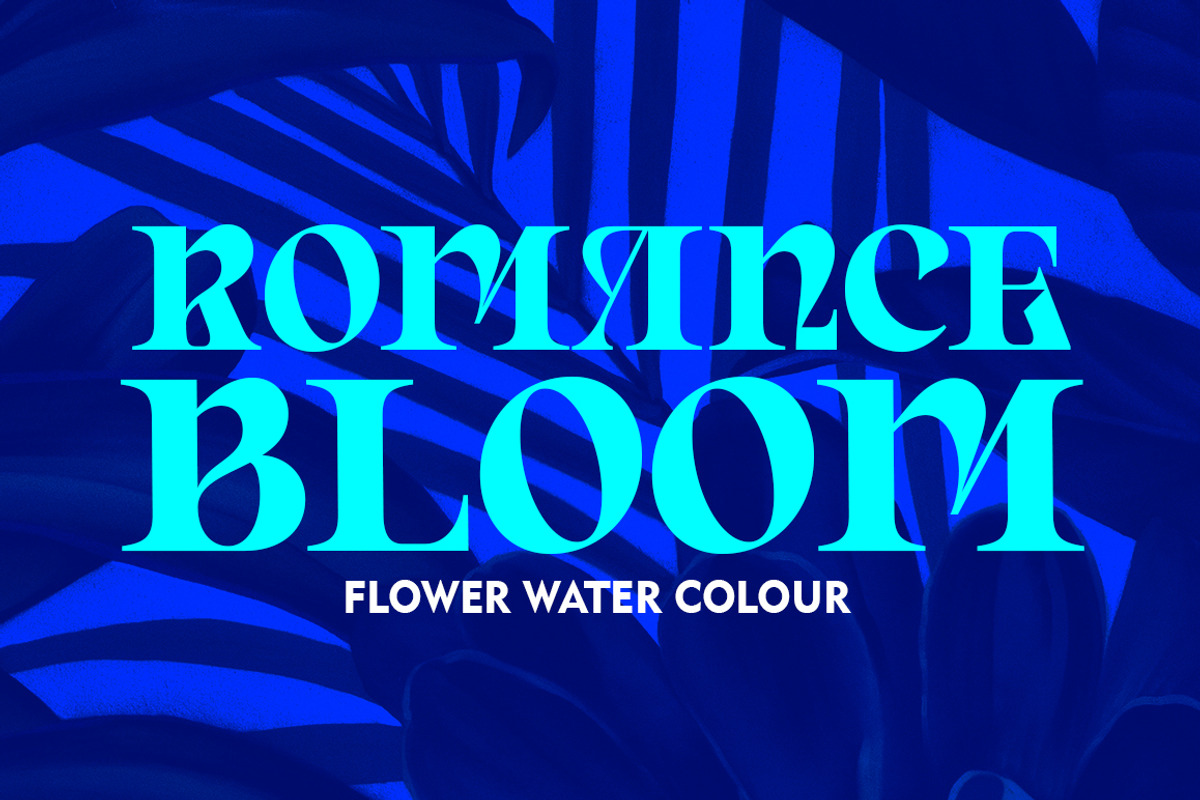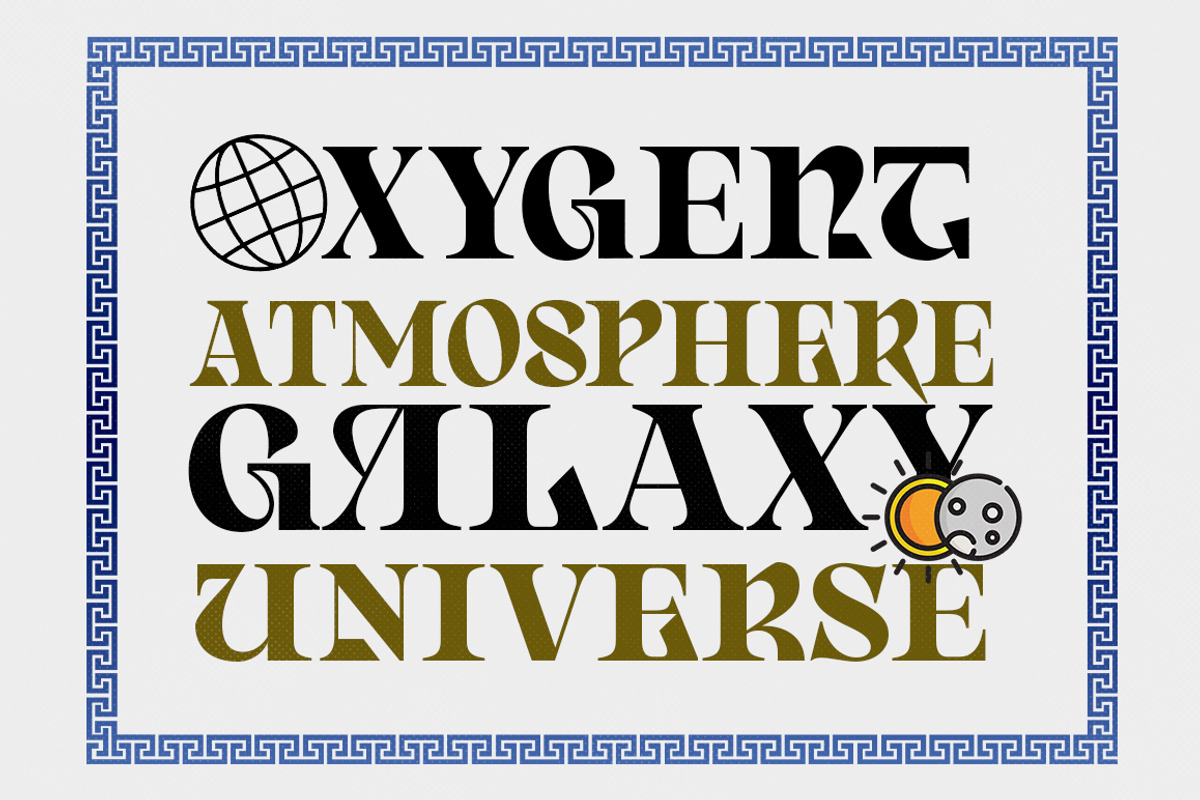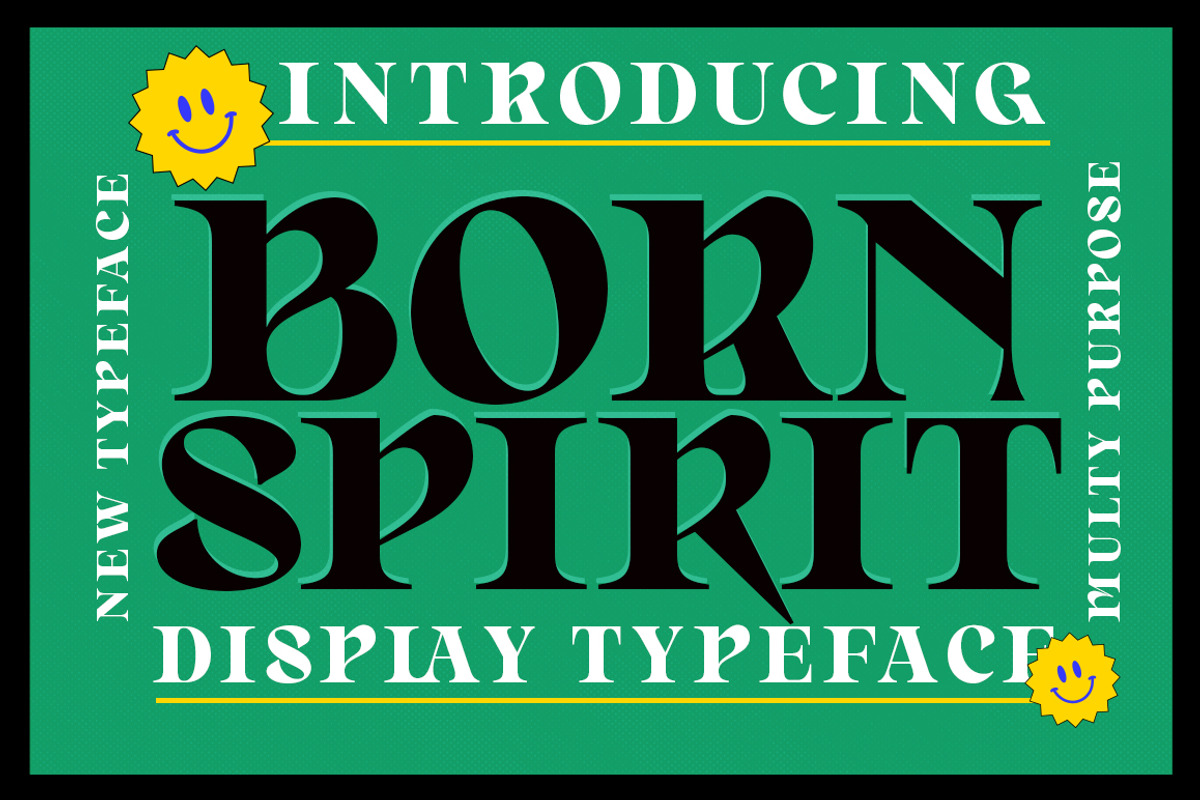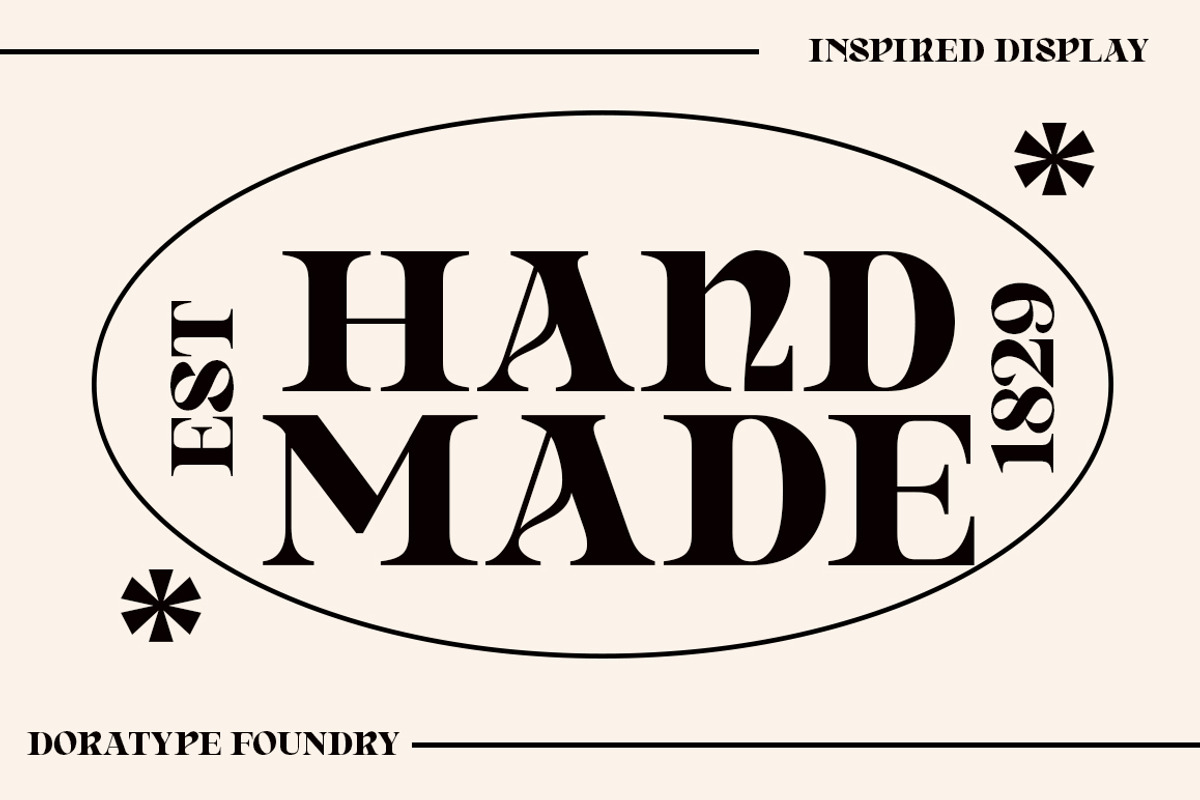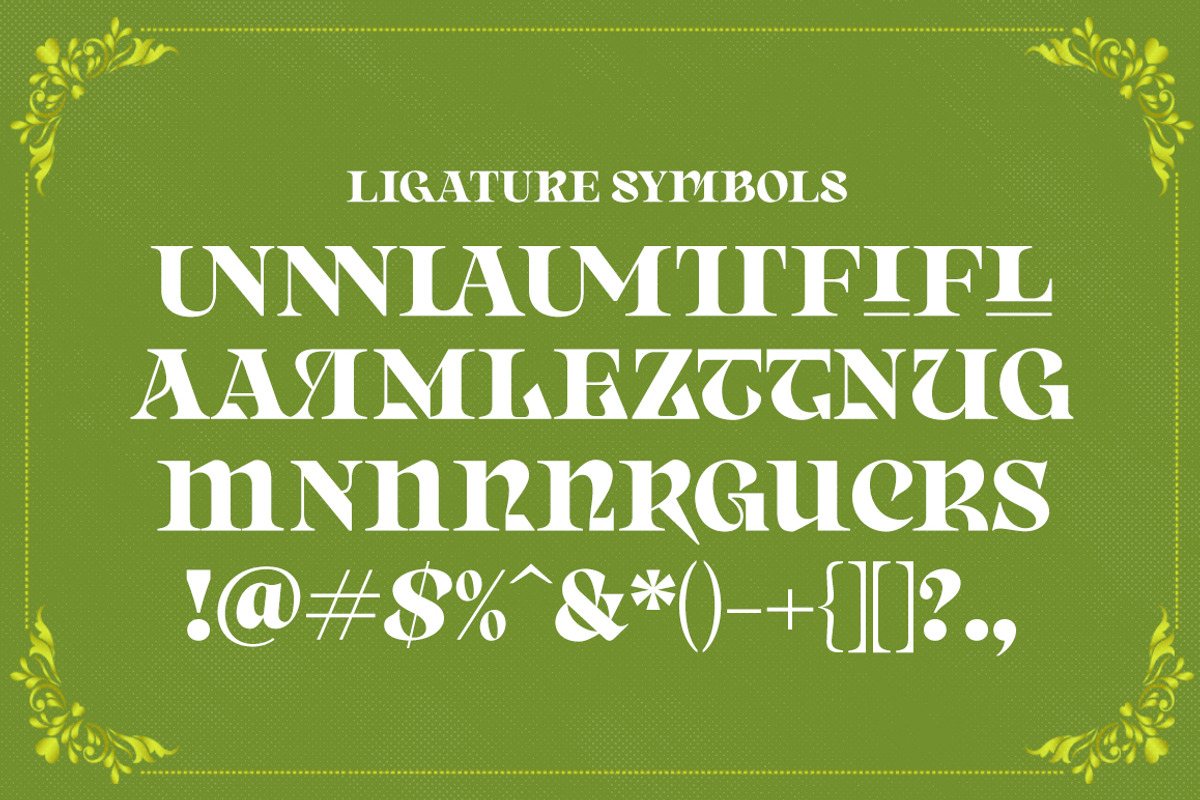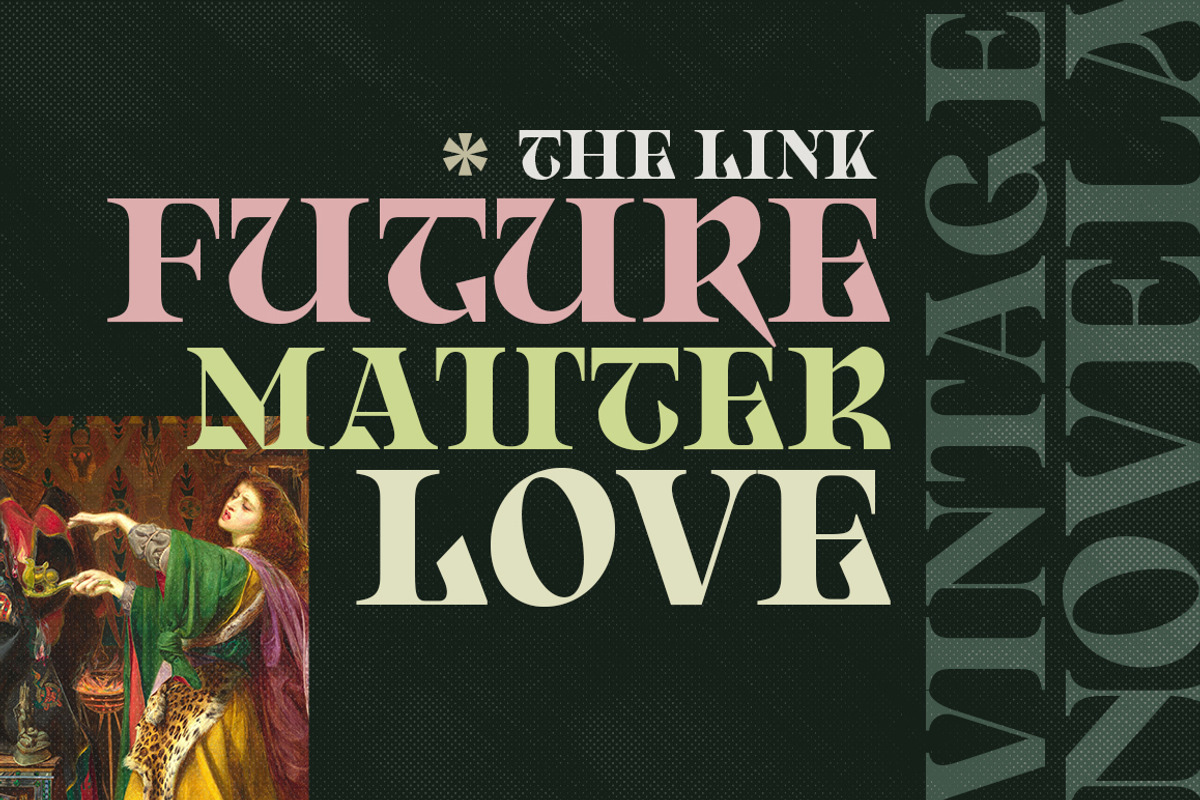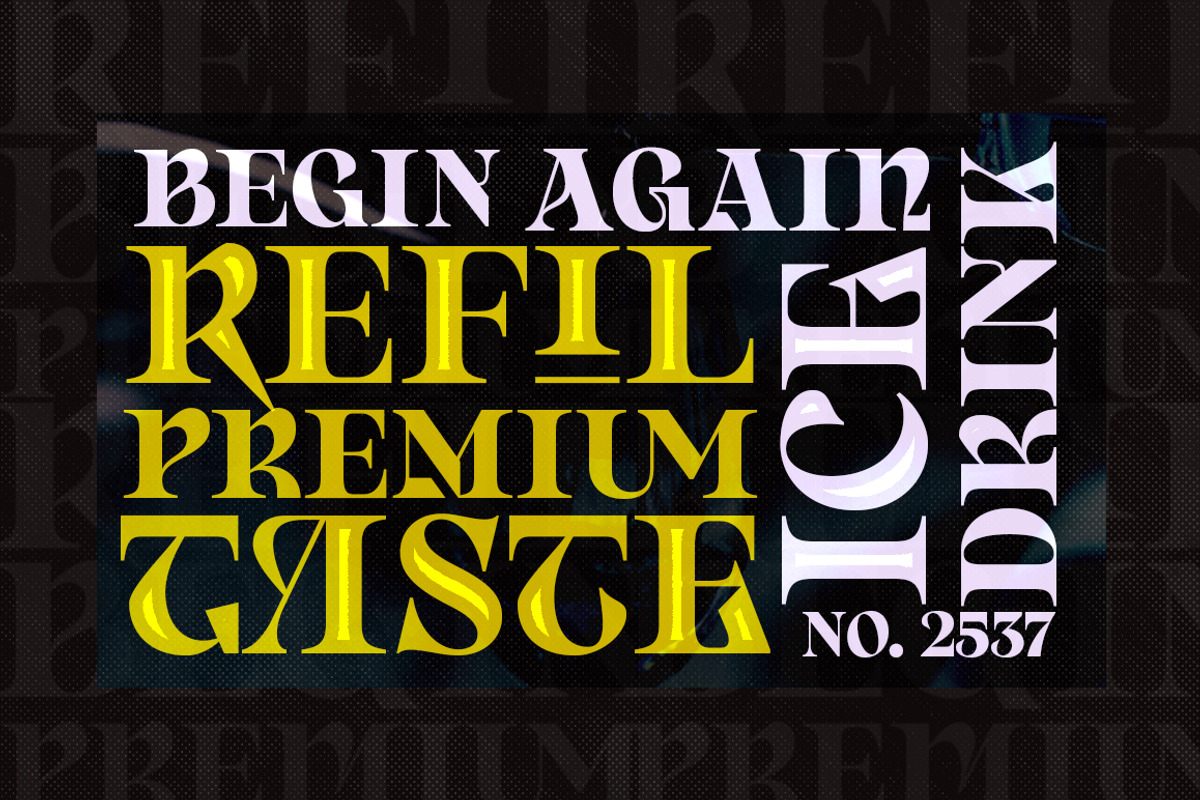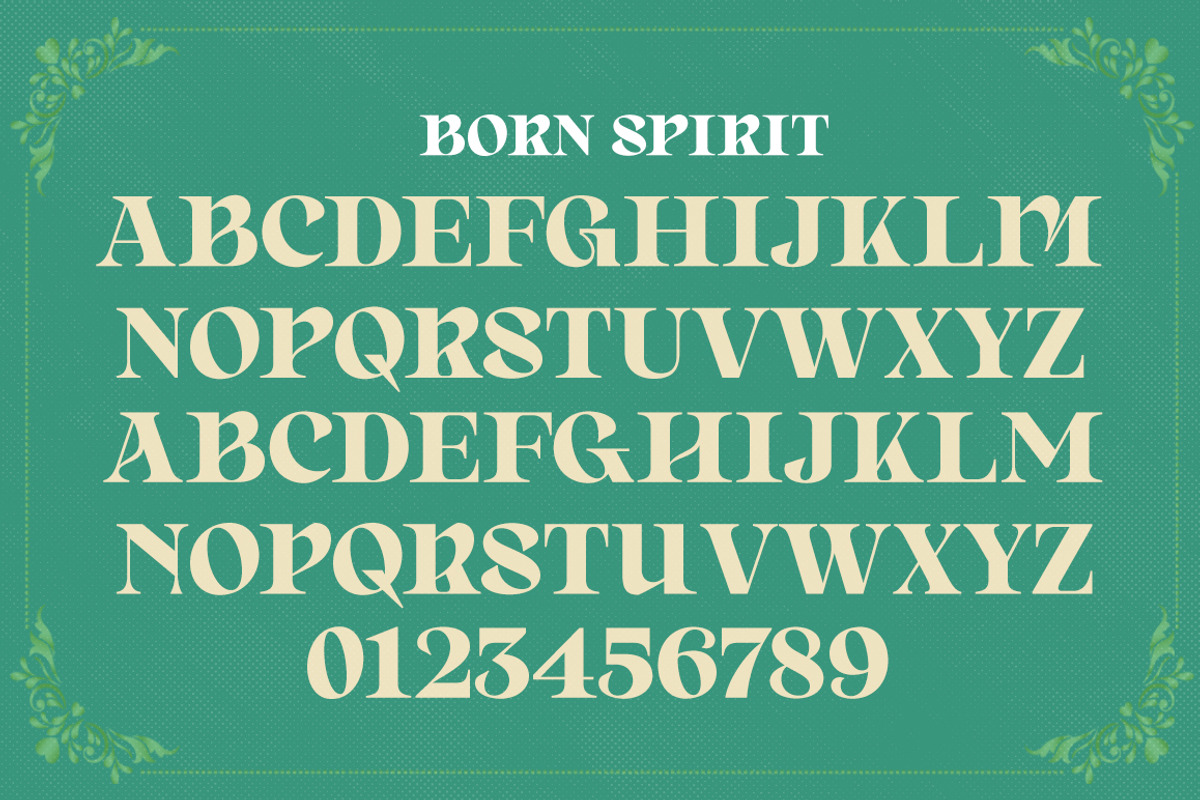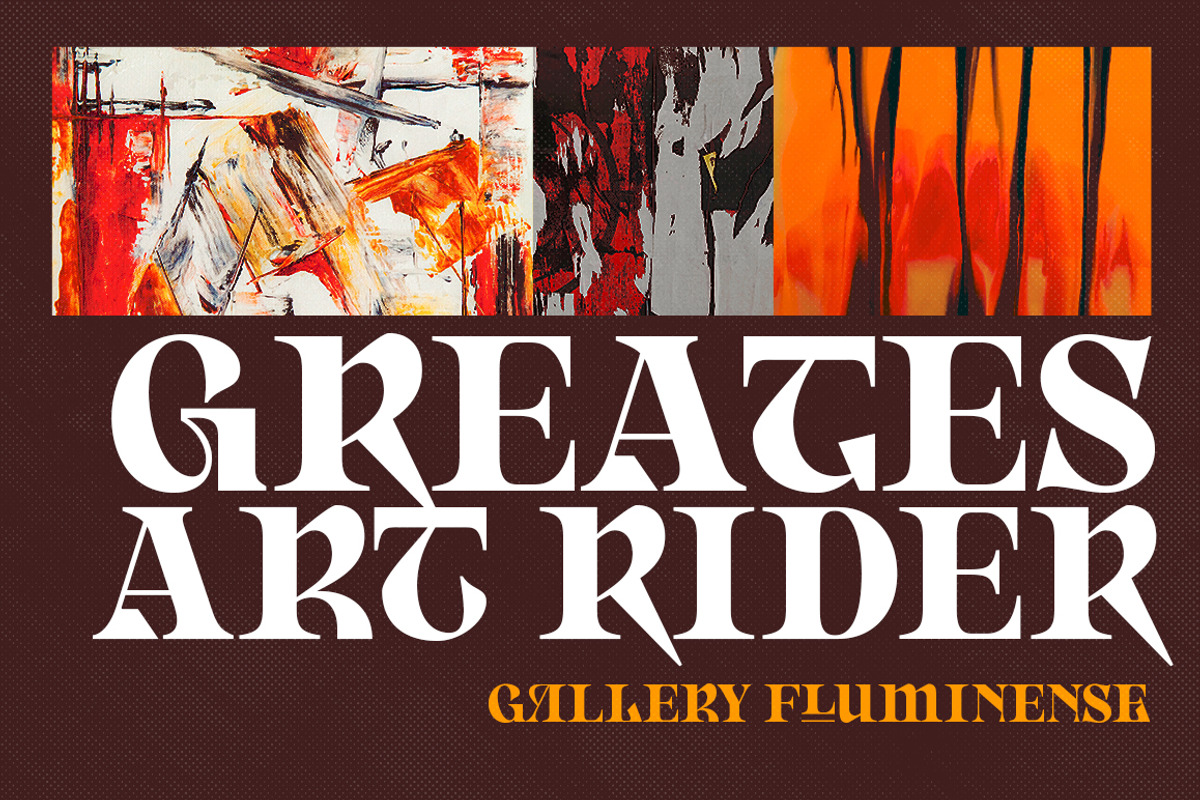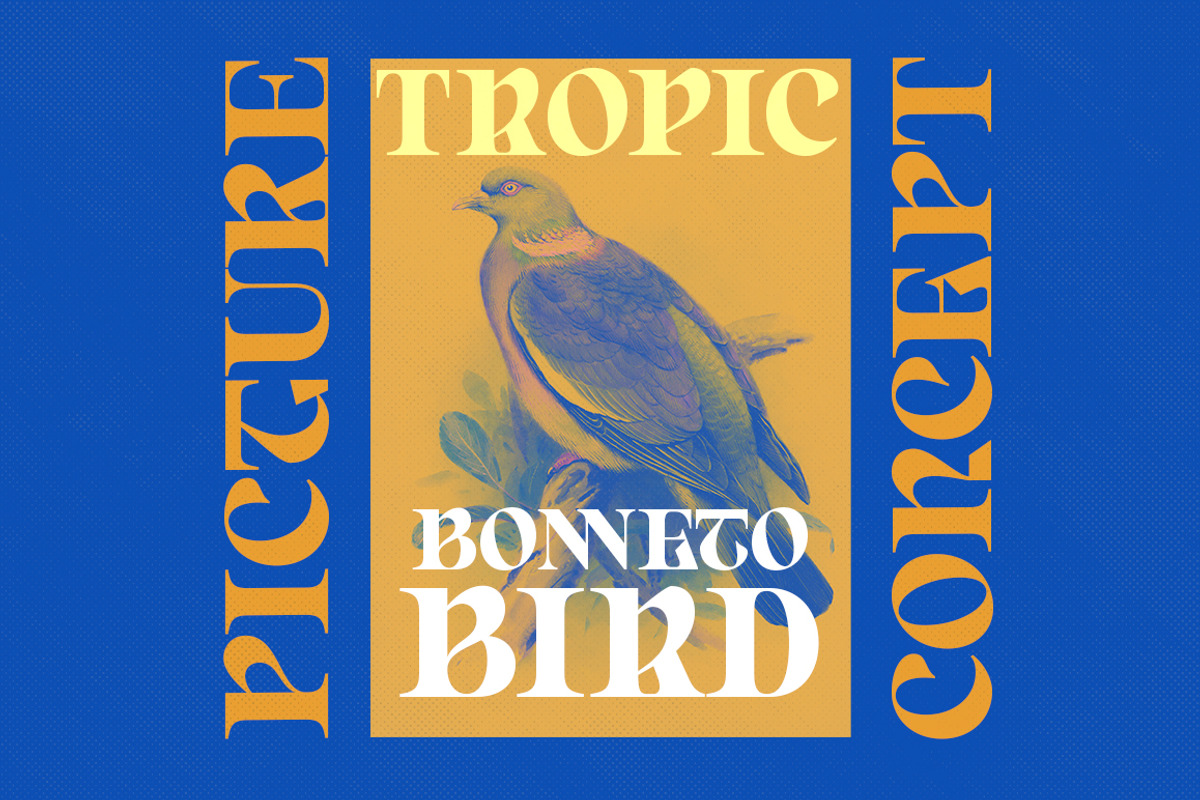
Born Spirit
Introducing the Born Spirit font, it is a display typeface that demands attention with a bold vintage look. Sharp hooks and strong lines create a sense of toughness. It's great to tap into designers or product owners who need solutions to make their designs look more uniquely elegant.